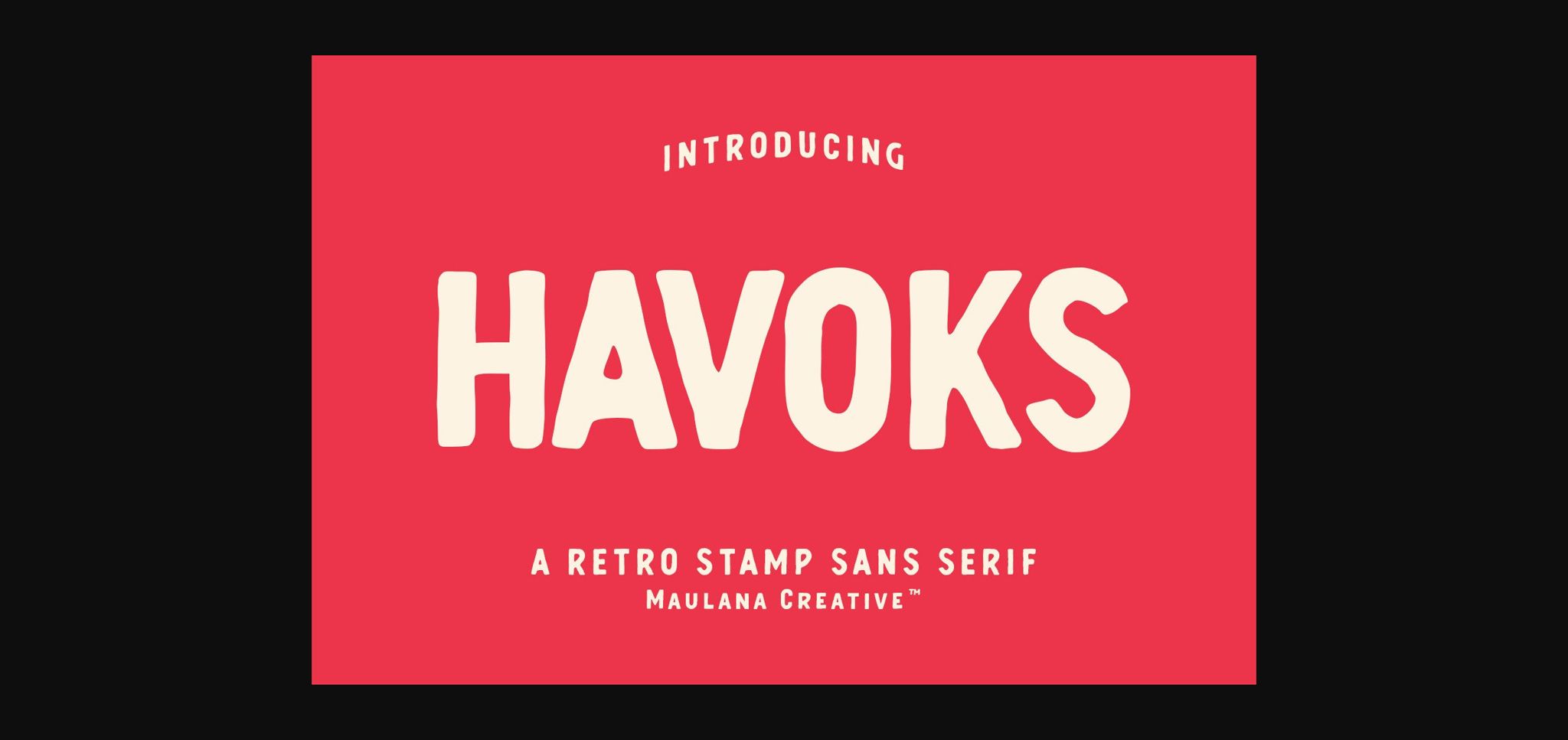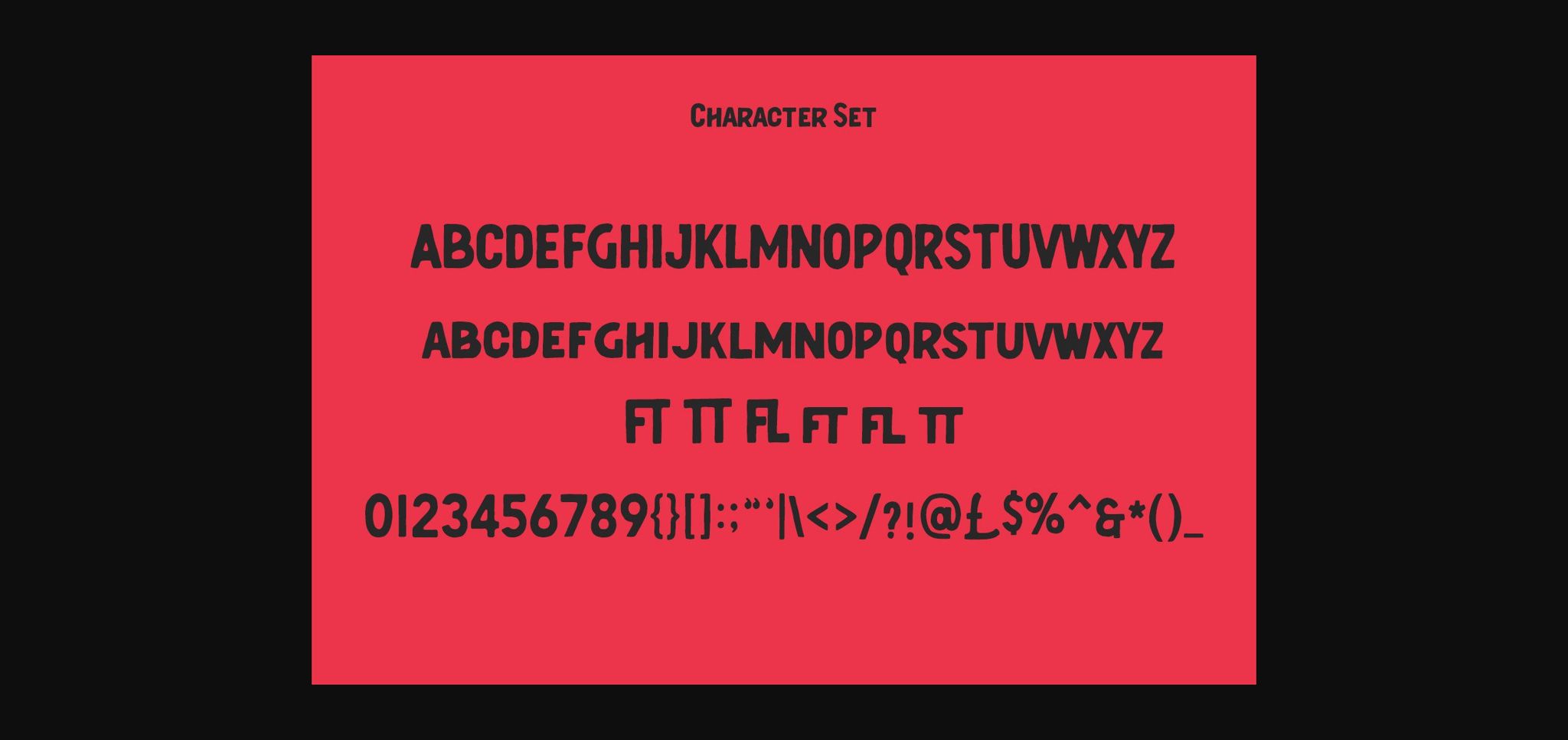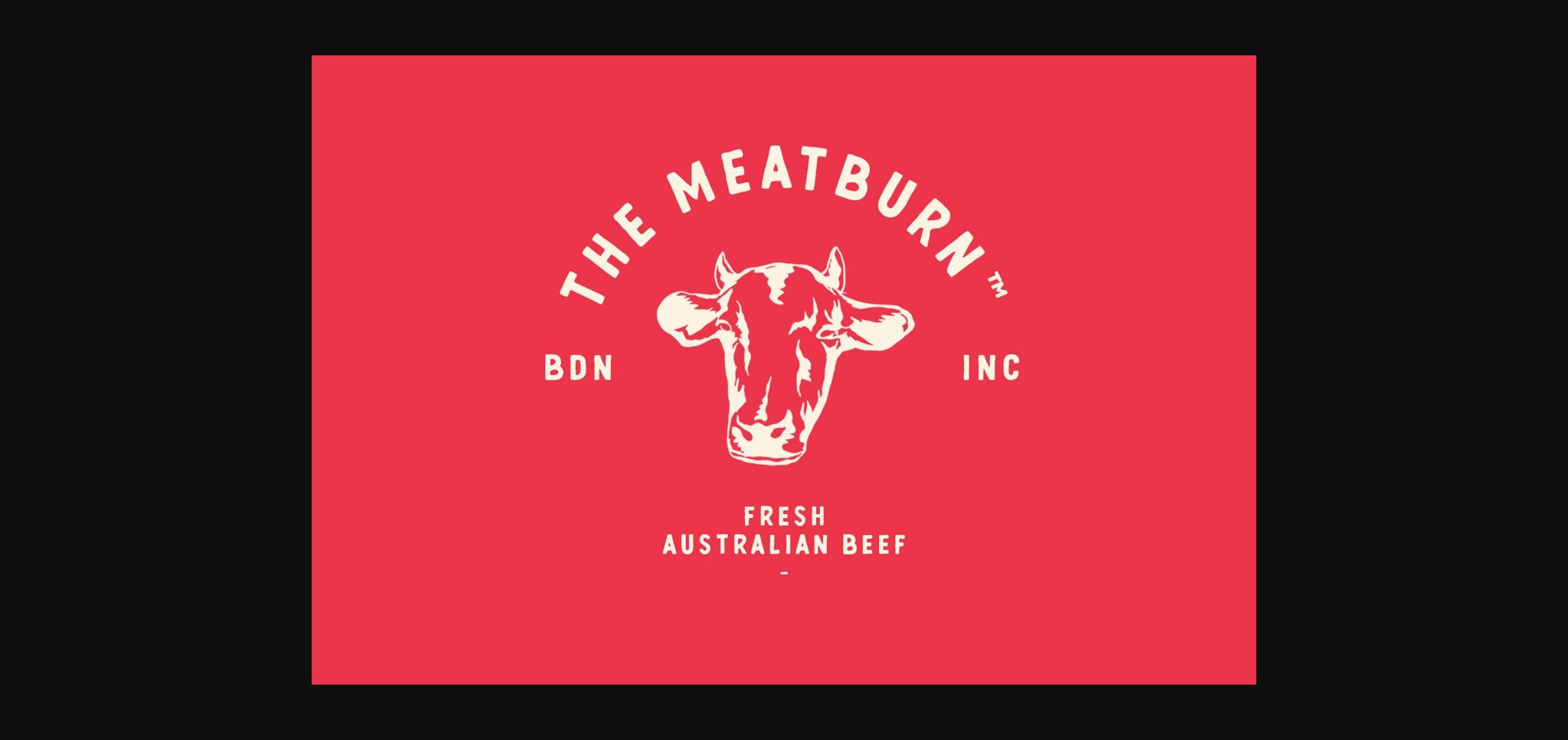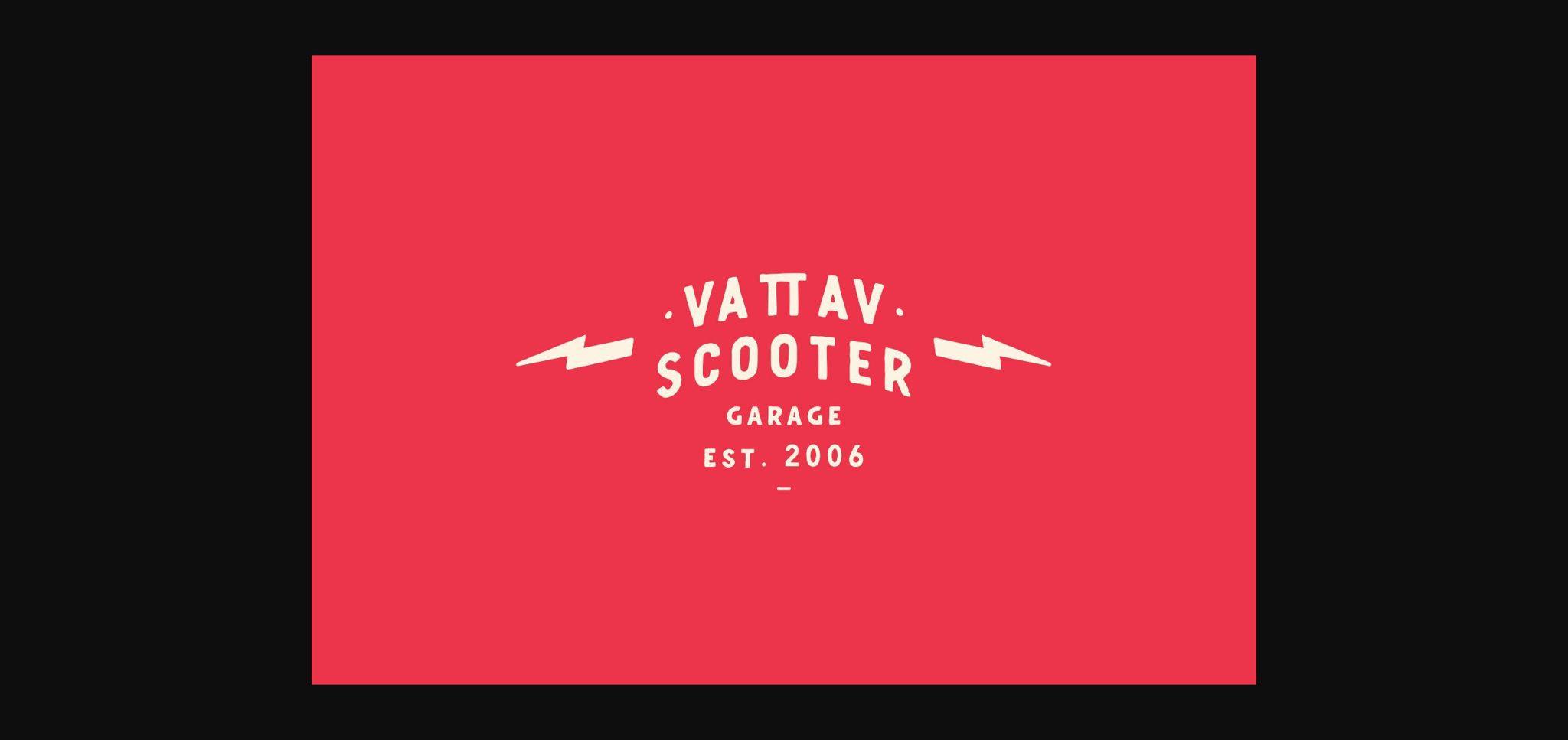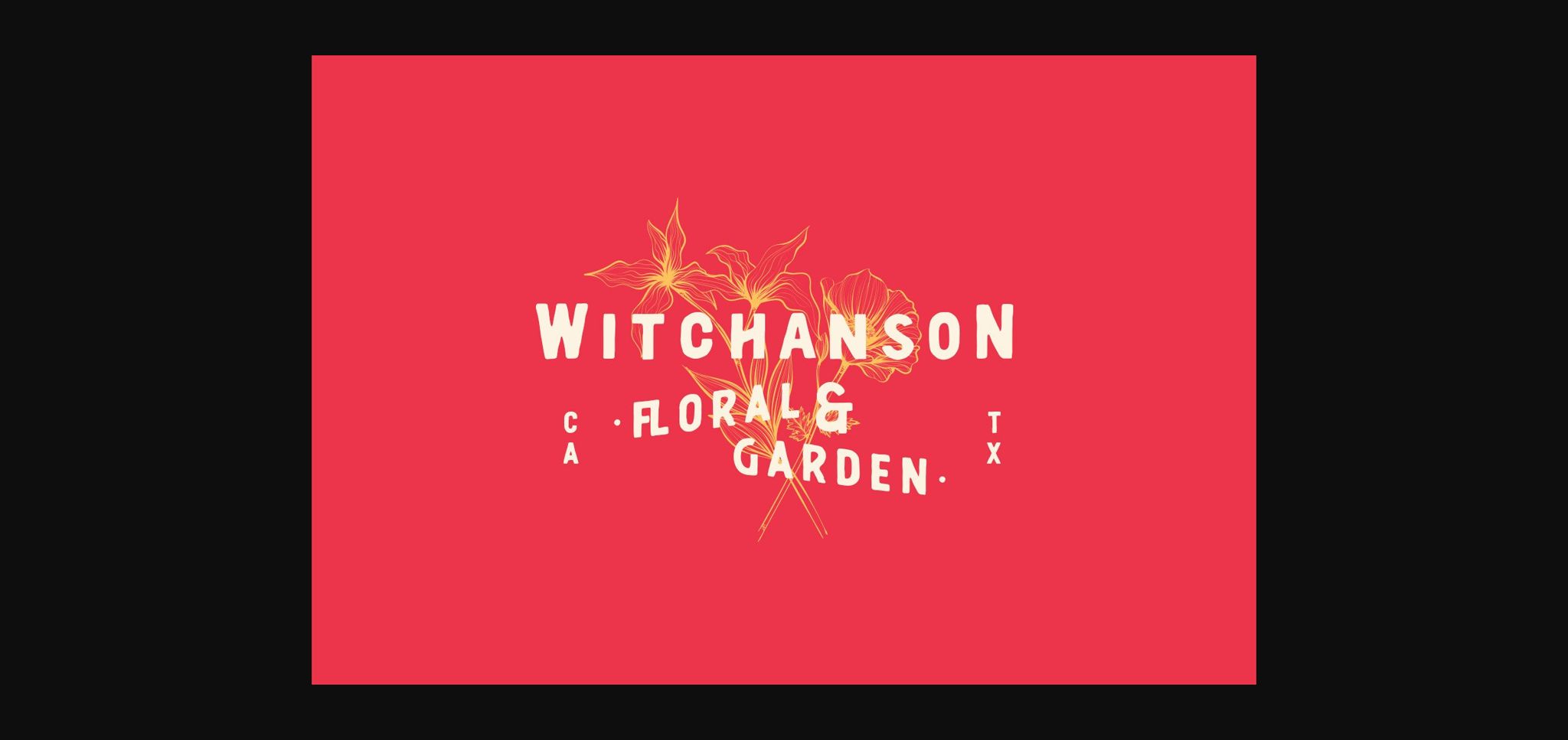
About Havoks Font
Havoks is a fun, retro-style sans serif font. Add this chunky lettered font to your designs and notice how it makes them come alive!